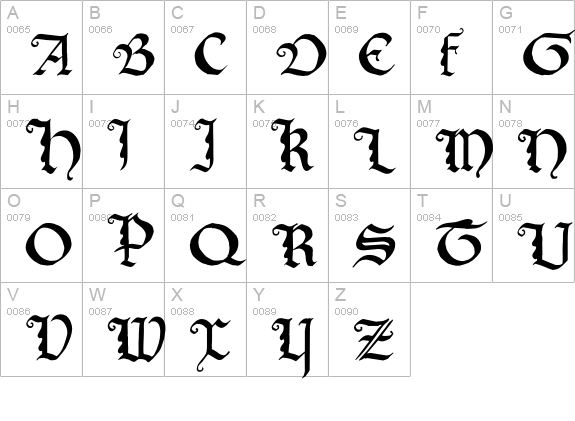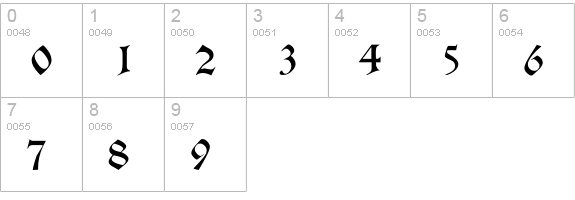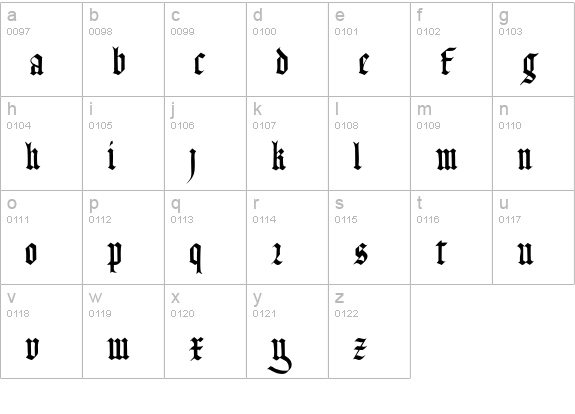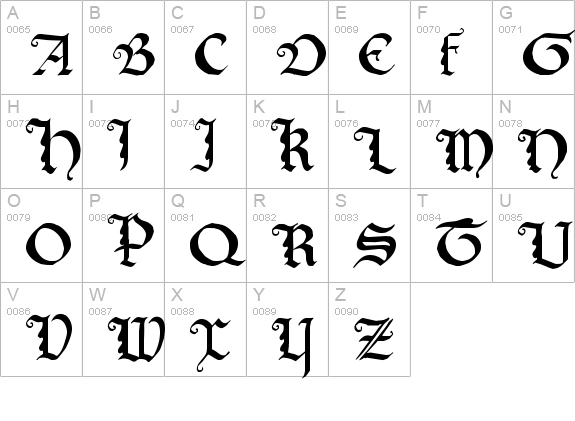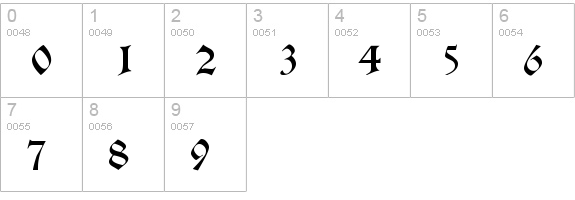
Kastiel Font Details
Introducing Kastiel, a captivating and versatile font that will elevate your designs to new heights. With its elegant curves and stylish details, Kastiel exudes a sense of sophistication and charm. This font is perfect for a wide range of projects, from branding and logo design to invitations and headlines. What sets Kastiel apart is its unique ability to effortlessly blend into any design concept while adding a touch of elegance and professionalism. Its carefully crafted letterforms create a harmonious balance between classic and modern styles, making it suitable for both traditional and contemporary designs. One of the most appealing aspects of Kastiel is that it is available for free. That's right, you can freely download this stunning font at FontsMarket.com. This means that you can easily incorporate Kastiel into your projects without breaking the bank. Whether you're a professional designer or a creative enthusiast, this font is a valuable addition to your typographic arsenal. Kastiel offers a range of weights and styles, allowing you to experiment and find the perfect fit for your design needs. From the delicate and graceful Thin weight to the bold and impactful Black weight, you have the freedom to express your creativity in countless ways. The versatility of Kastiel extends beyond its weights and styles. It supports multiple languages, making it a truly global font choice. No matter where your audience is, Kastiel ensures that your message is communicated clearly and effectively. In addition to its aesthetic appeal, Kastiel is also highly legible, ensuring that your text is easily readable across various mediums and sizes. Whether it's on a website, a printed document, or a digital display, your content will always shine with clarity and professionalism. So why wait? Experience the beauty and flexibility of Kastiel for yourself. Download this remarkable font for free at FontsMarket.com and unlock a world of creative possibilities. With Kastiel by your side, your designs will captivate and inspire audiences, leaving a lasting impression.